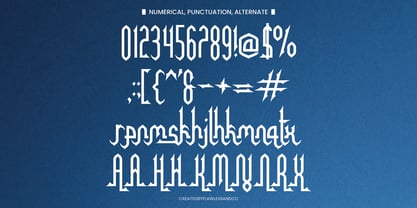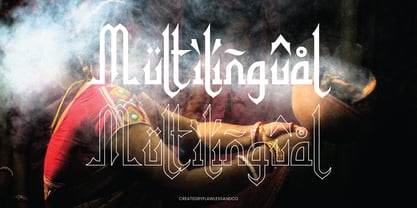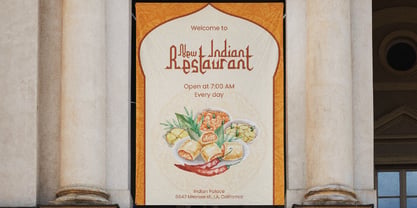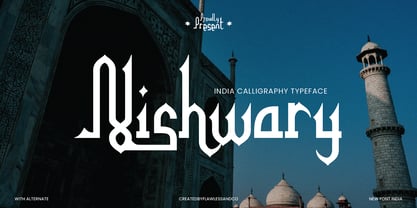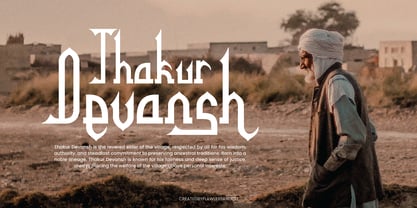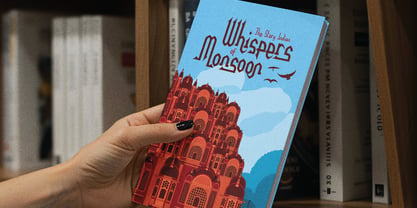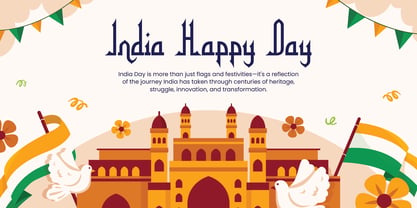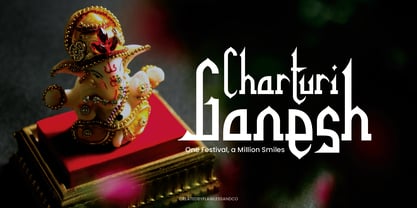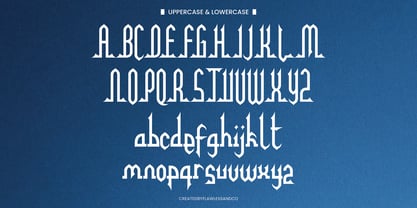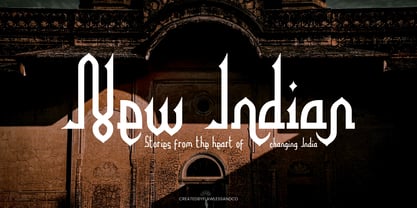
Nishwary
The Nishwary Font Family was designed by Achmad Yani and published by Flawlessandco. Nishwary contains 1 styles. More about this family
Nishwary is an India Calligraphy Typeface a bold yet refined font that blends traditional Indian script aesthetics with a touch of gothic influence. With its ornamental details, sharp strokes, and uniquely crafted letterforms, Nishwary brings a ceremonial charm to your creative projects. Inspired by ancient Indian scripts and the cultural richness of the subcontinent, Nishwary evokes heritage, celebration, and storytelling through every glyph. This typeface is designed with alternate characters, giving you versatile options to express uniqueness in every headline, branding piece, or cultural event promotion.
Features :
Multilingual, Uppercase alphabet A-Z, Lowercase alphabet a-z, Numbers 0-9, Some punctuation, Alternates & Ligatures